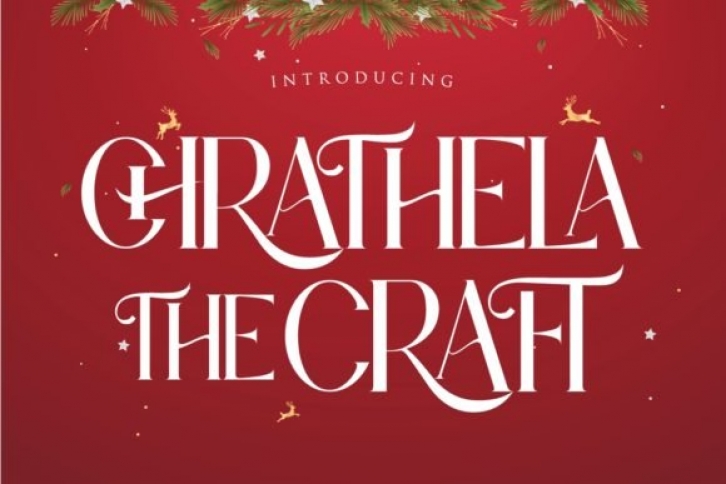
Chrathela is a beautiful and elegant serif font. It is the ideal choice for each of your festive designs, so add it confidently and you will love the results.